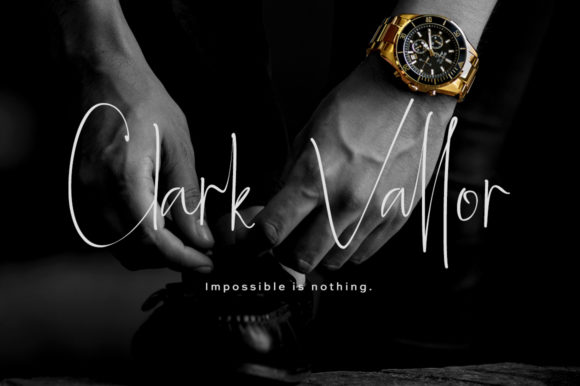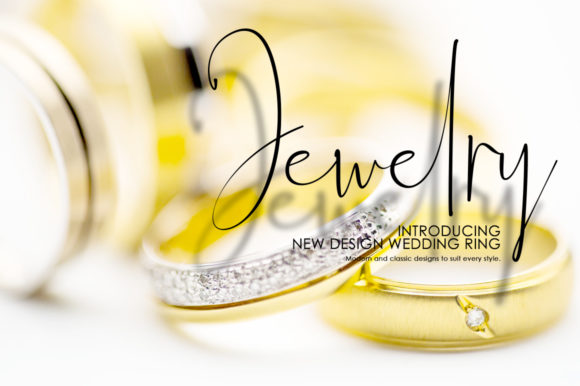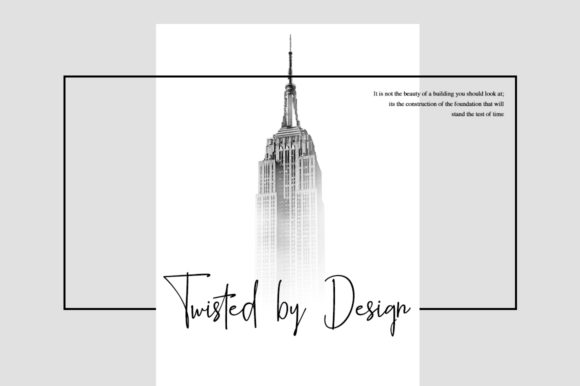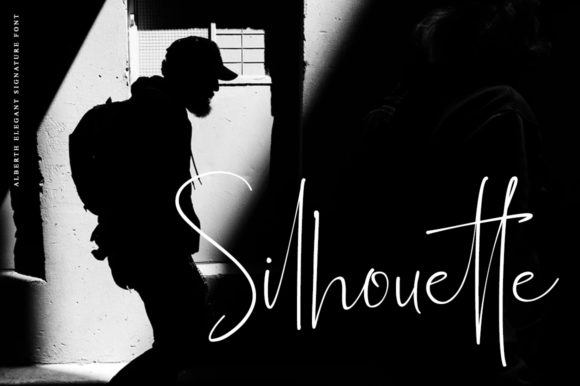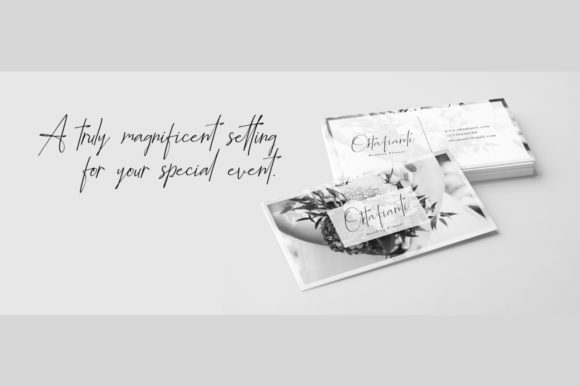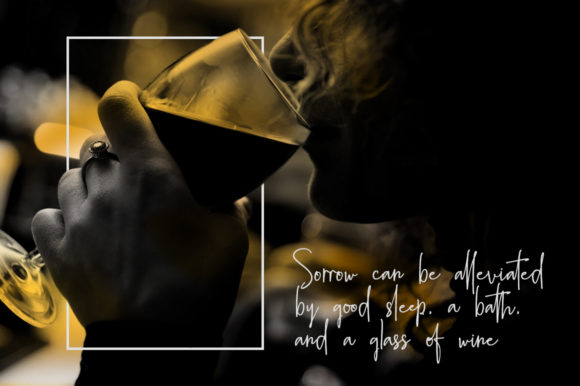
The Elegance of Alberth Family Font: Elevate Your Designs with Sophistication
In the realm of typography, the right font can transform your design from ordinary to extraordinary. For those seeking a classy and luxurious touch, the Alberth Family Font stands out as an exceptional choice. This stunning family of fonts offers four distinct weights, each crafted to bring an air of elegance and sophistication to a wide array of design projects.
Unveiling the Alberth Family Font
The Alberth Family Font is not just a typeface; it’s an experience. Its unique and elegant design makes it an ideal selection for designers and crafters aiming to leave a lasting impression. Whether you’re working on a logo, invitation, wedding card, watermark, cover, quote, business card, or any other design project, this font family is engineered to enhance your creative output with its refined aesthetic.
One of the key advantages of the Alberth Family Font is its versatility. Comprising four weights, it offers flexibility for various design applications. From the light and subtle to the bold and commanding, each weight can be strategically used to create visual hierarchy, add emphasis, and evoke the desired emotional response from your audience.
Applications of Alberth Family Font
- Logos: Create a memorable brand identity with a custom logo that exudes elegance and sophistication.
- Invitations: Set the tone for special occasions with beautifully crafted invitations that reflect the event’s luxury and charm.
- Wedding Cards: Make your wedding stationery stand out with a font that adds a touch of romance and class.
- Watermarks: Add a professional and luxurious feel to your photographs and digital artworks.
- Covers: Design eye-catching book covers, magazine covers, or any other publication that demands attention and conveys quality.
- Quotes: Present inspirational and thought-provoking quotes in a visually appealing and impactful manner.
- Business Cards: Elevate your business card design to reflect your brand’s professionalism and style.
The Benefits of Using Alberth Family Font
Choosing the Alberth Family Font for your design projects comes with numerous benefits:
- Unique and Elegant Design: Stand out from the crowd with a font that is both distinctive and refined.
- High Versatility: Suitable for a wide range of design projects, ensuring you have a go-to font for various applications.
- Emotional Connection: The elegant design helps in creating an emotional connection with your audience, enhancing the impact of your message.
- Time-Saving: With its comprehensive family of four weights, you can efficiently work on different aspects of your design without needing multiple fonts.
Tips for Maximizing the Alberth Family Font
To get the most out of the Alberth Family Font, consider the following tips:
- Mix and Match Weights: Combine different weights to create visual interest and hierarchy in your designs.
- Experiment with Colors: While the font itself is elegant, experimenting with colors can further enhance its appeal and adapt it to your brand’s aesthetic.
- Pair with Simplicity: The beauty of the Alberth Family Font often lies in its simplicity. Pair it with simple backgrounds or design elements to let the font be the focal point.
The Alberth Family Font is a powerful tool in the arsenal of designers and crafters looking to infuse their projects with elegance and luxury. Its unique design, versatility, and range of applications make it an invaluable asset for anyone aiming to create high-quality, impactful designs. Whether you’re working on a personal project or a client’s, incorporating the Alberth Family Font can elevate your work, making it more engaging, sophisticated, and memorable.
Discover the transformative power of the Alberth Family Font and take your designs to new heights of elegance and sophistication.